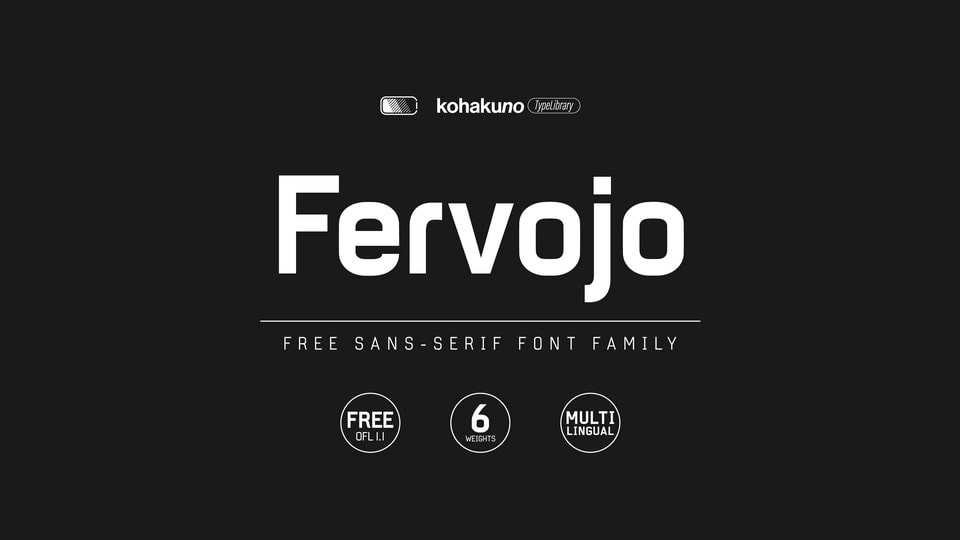
Download Fervojo font, a geometric sans serif typeface inspired by the numeric type that have been used in the subway system of Tokyo, Japan.
Designer: Kohakuno A.L.